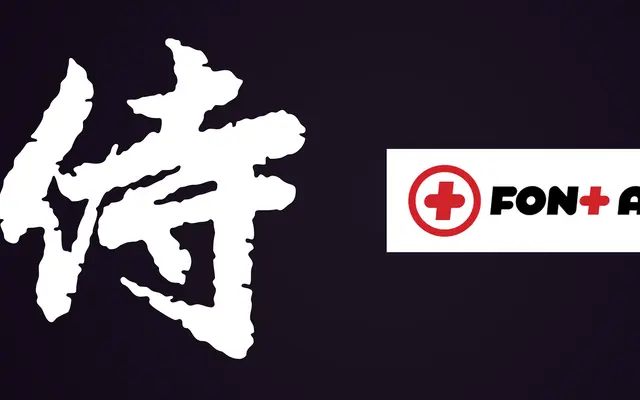
FontAid V
A charity typeface collaboration produced in aid of Japanese relief organisations, featuring a contribution from Dharma Type of an antiqued Kanji character for 'Samurai'.
FontAid V is a collaborative font project organised by SOTA (Society of Typographic Aficionados), with Dharma Type contributing an antiqued Kanji character representing 'Samurai'. All proceeds from sales go directly to Japanese relief organisations including AMDA International. The font is available through selected vendors listed on the SOTA website.